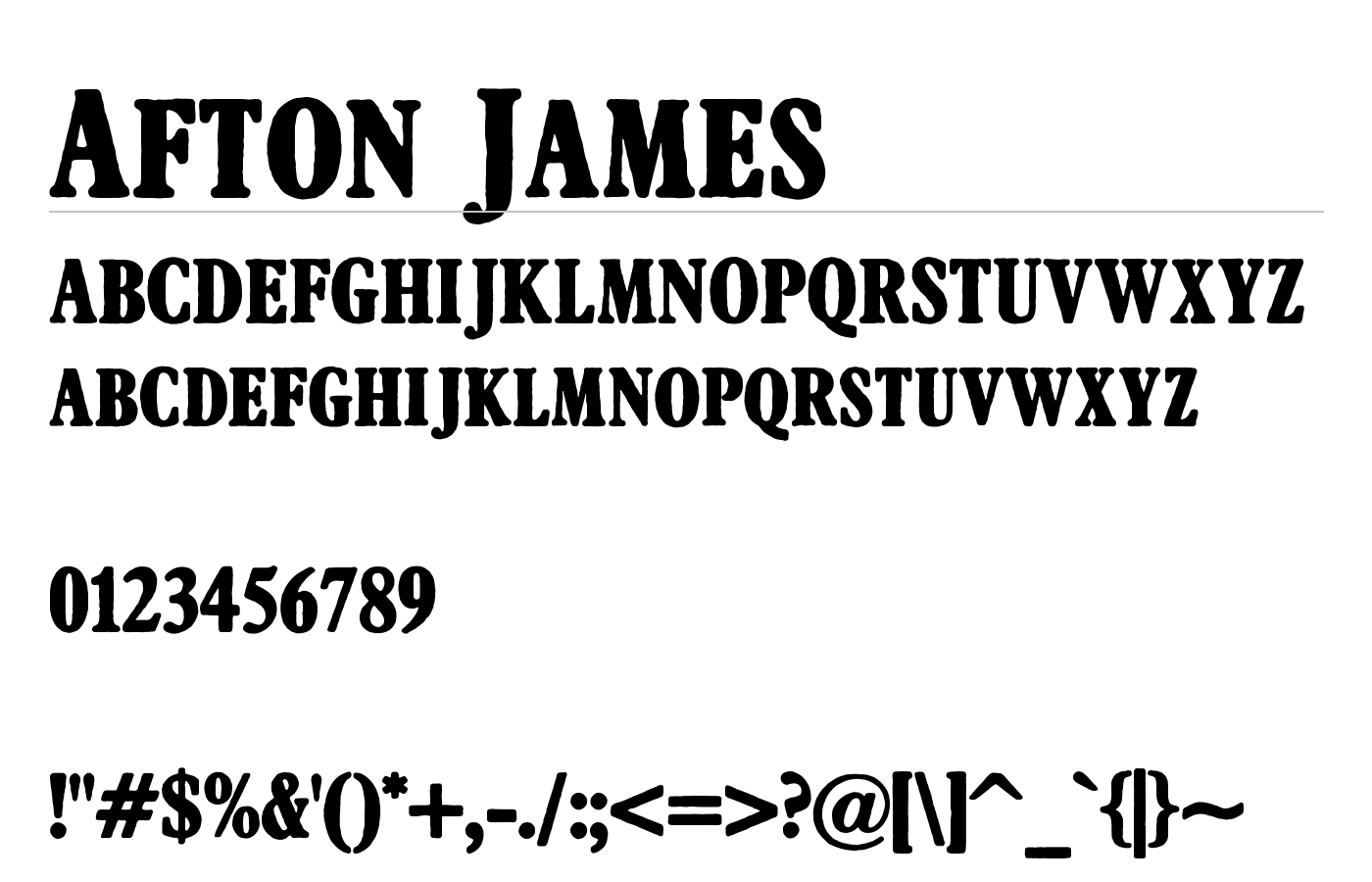
Afton James is a bold slab serif font with a vintage western feel, featuring thick, blocky serifs and a slightly condensed width that gives it a strong, impactful presence. Its high stroke contrast and sturdy letterforms make it ideal for headlines, logos, and branding that aim to evoke a rustic, rugged charm. This font works well in designs needing a touch of nostalgic character while maintaining clear readability and bold style.
Afton James Font
About Afton James Font